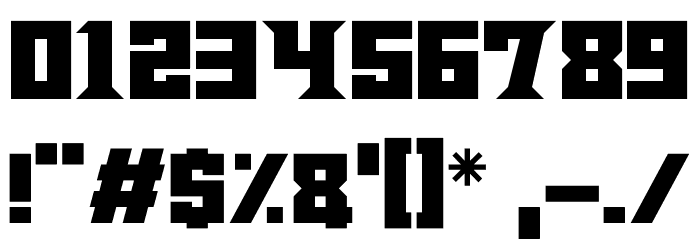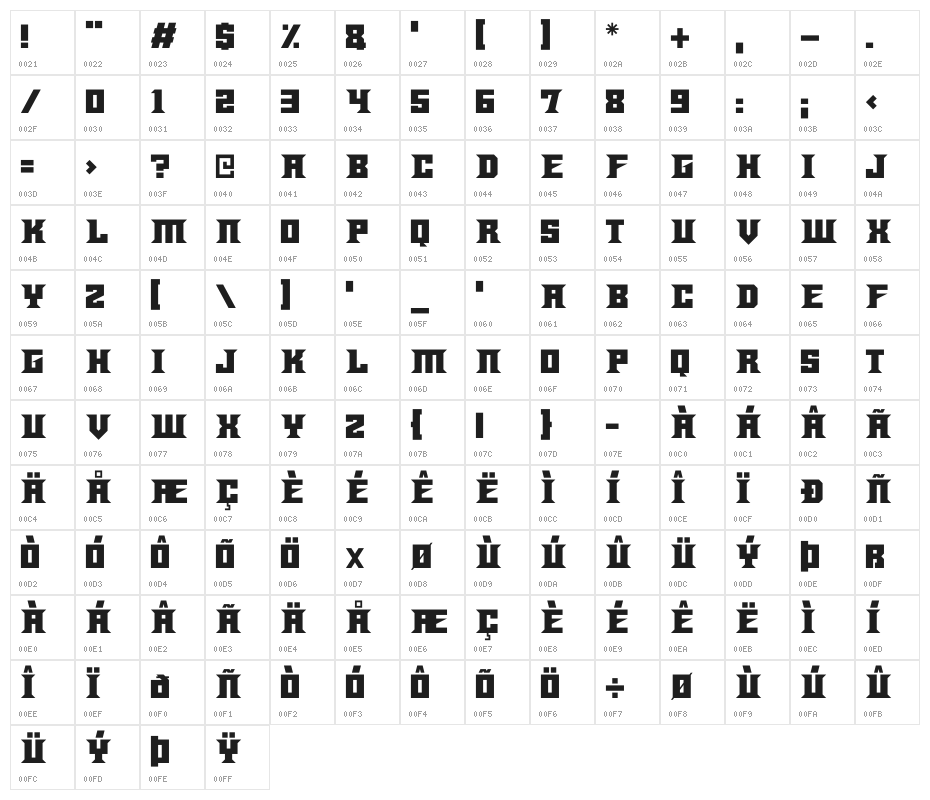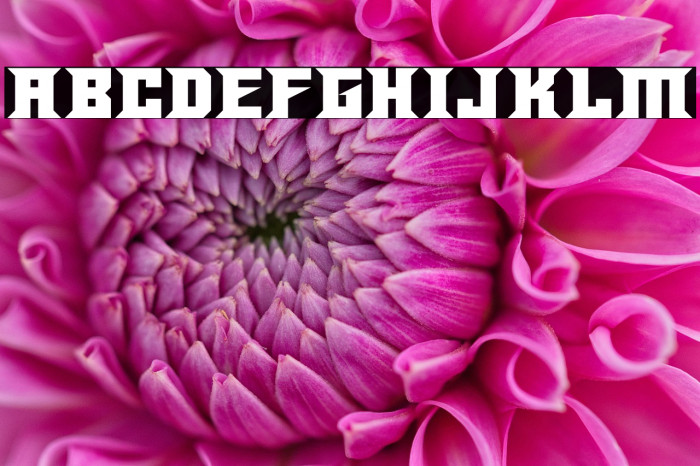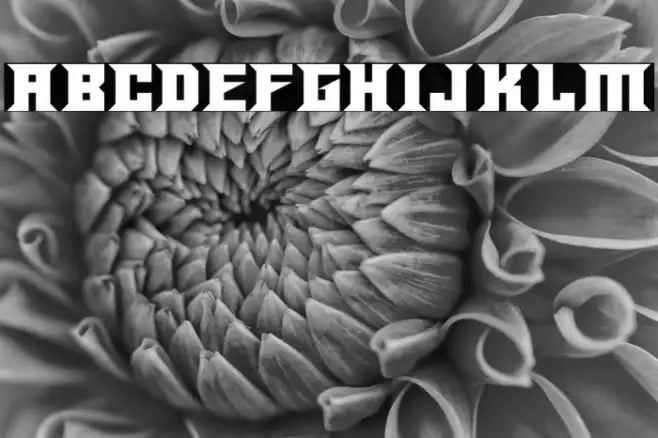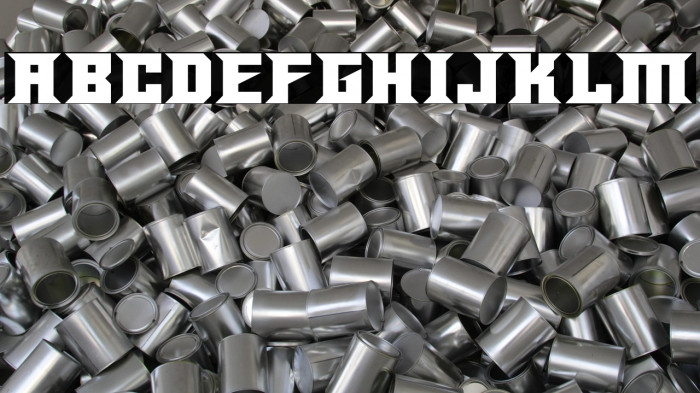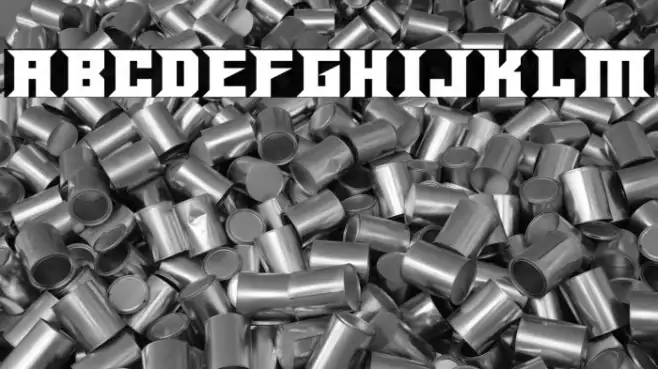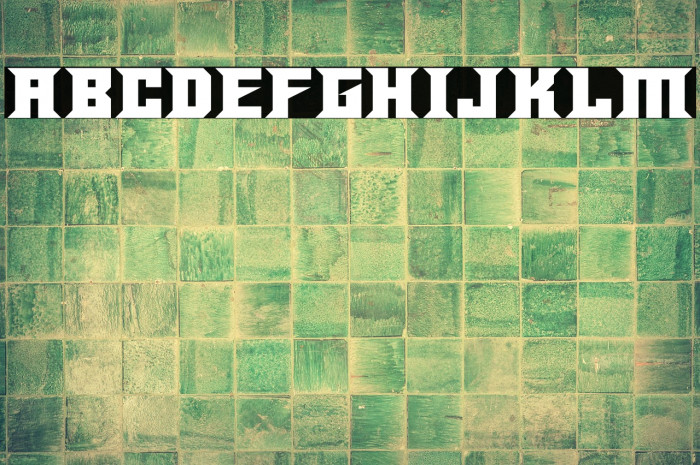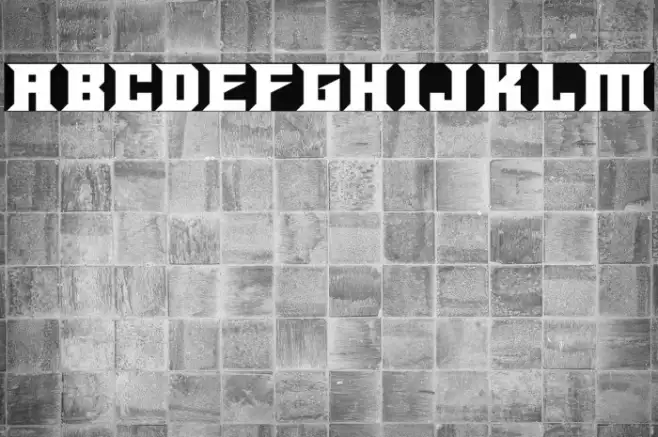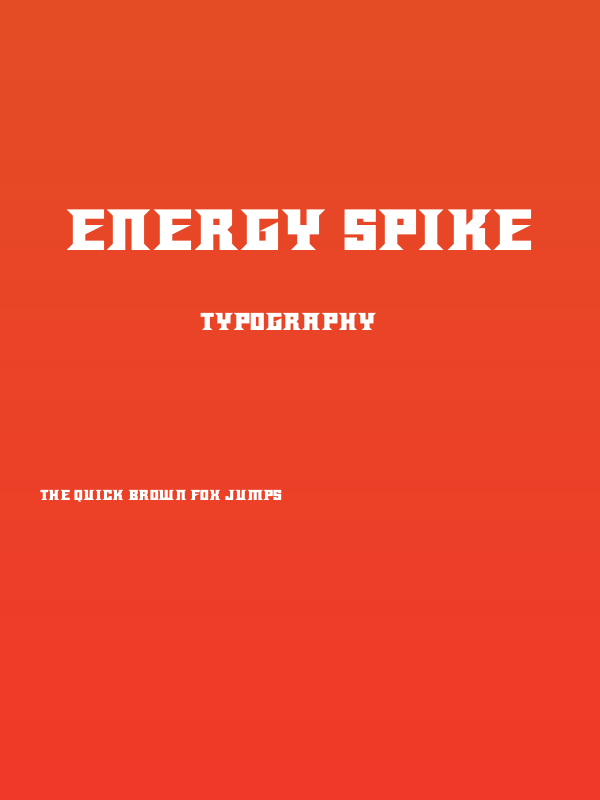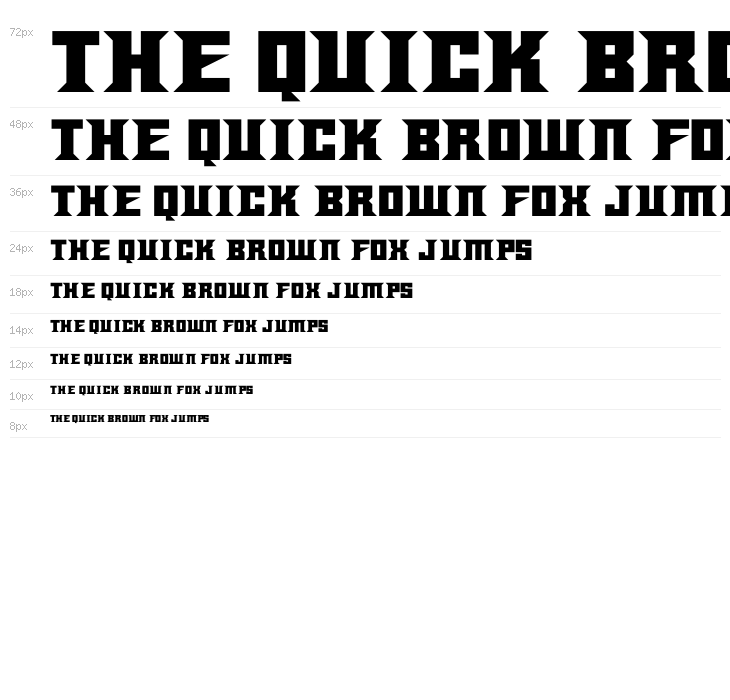
Energy Spike Font
Energy Spike Description
This font features a bold and angular design, characterized by sharp edges and a geometric structure. The uppercase and lowercase letters maintain a consistent height, creating a uniform appearance. The numerals and special characters follow the same angular style, enhancing the overall cohesive look. The font's strong presence and distinctive style make it suitable for attention-grabbing designs. Its bold weight and high contrast between thick and thin strokes contribute to its impactful visual appeal.
| Proposed Projects | Ideal for posters, logos, video game graphics, and branding that requires a strong, modern aesthetic. |